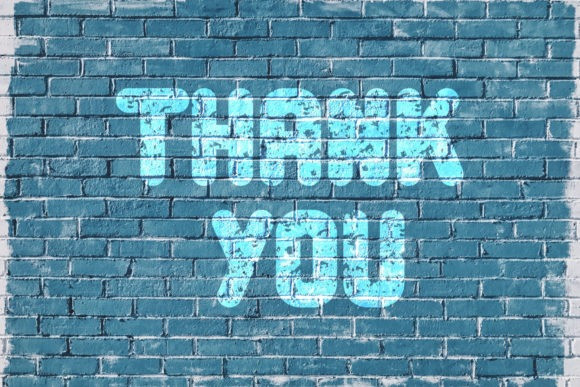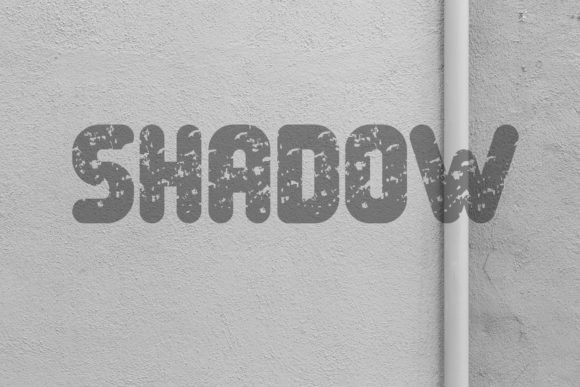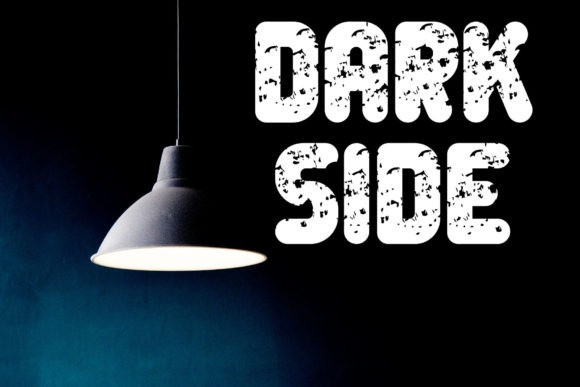
Dark Side Font
Dark Side Font is a cool, bold, rough styled display font. No matter the topic, this font will be an incredibly asset to your fonts’ library, as it has the potential to elevate any creation.